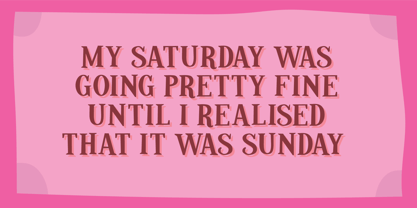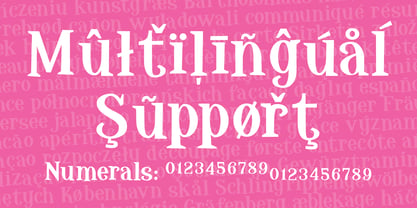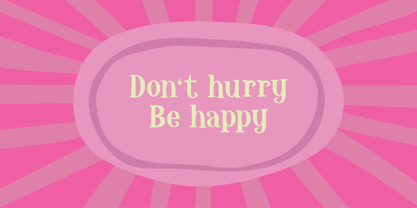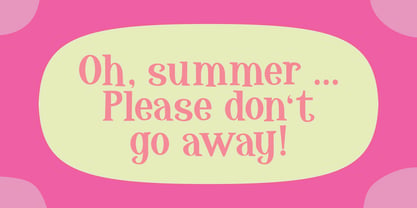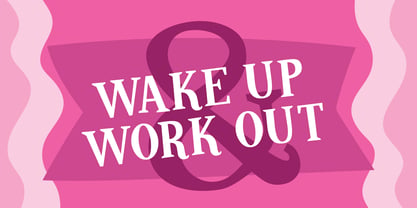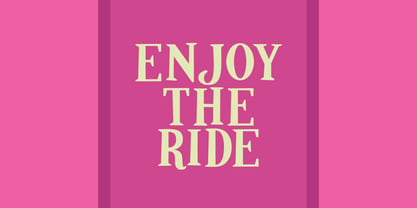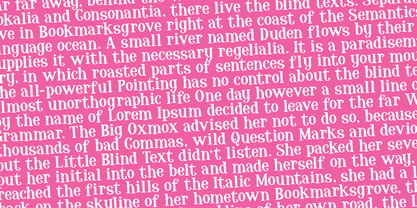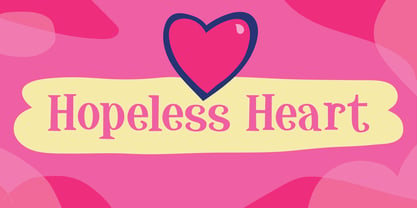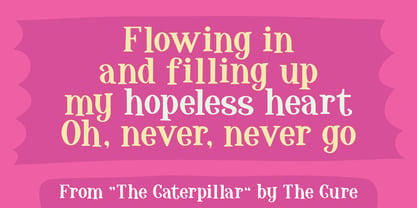
Hopeless Heart
La familia tipográfica Hopeless Heart fue diseñada por Jakob Fischer y publicada por PizzaDude.dk. Hopeless Heart contiene 2 estilos y opciones de paquete familiar. Más información sobre esta familia
Hopeless Heart isn't really all that hopeless! With its jumpy baseline and the different sized serifs, it’s a font full of fun and games, suitable for your next wedding invitation or love letter.
Originally designed way back in 2004, and updated in 2026.
I have edited glyphs and curves, added more language support, added better spacing and kerning.
The result of all these updates is a more smooth, legible and perhaps even more romantic font! ;)
Features:
I have included the Standard Ligatures - the well-known ligatures such as ff, fi, fl, ffi, ffl
Fractions are nice having available. You skip the work of resizing the numbers yourself, because I have done all the work for you!
Multilingual support
This font comes with extensive multilingual support, and supports loads of different languages.